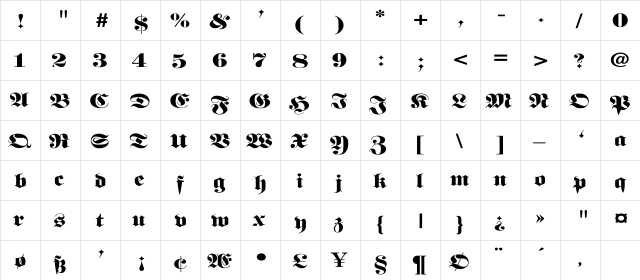
FetteFraktur-SemiBold Wd Regular
Design Context for FetteFraktur-SemiBold Wd Typeface
FetteFraktur-SemiBold Wd draws on the rich tradition of blackletter calligraphy, with dense, angular strokes that evoke medieval manuscripts and old-world craftsmanship. Its bold stroke weight gives it real presence on the page.
Well-suited to band logos, craft beer branding, tattoo lettering, and heritage-themed identities.
Font Pairing: Pair with a clean neutral sans-serif for body copy to let FetteFraktur-SemiBold Wd's character lead without overwhelming the composition.
Pro Tip: Use FetteFraktur-SemiBold Wd sparingly at large sizes. Even a single word set in blackletter can define the visual register of an entire design.